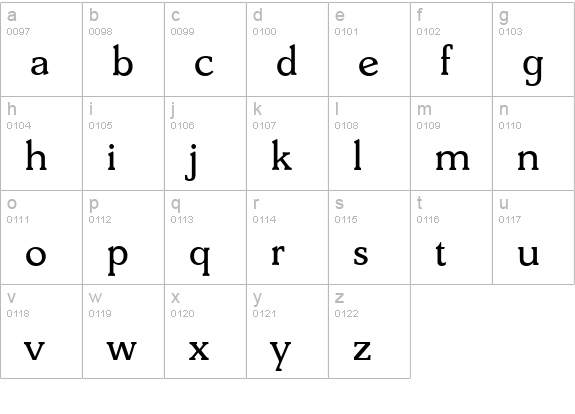
DerringerSerial-Regular is the standard, neutral variant in the DerringerSerial typeface family \xE2\x80\x94 well suited to general body text, paragraphs, and standard typographic work.
DerringerSerial-Regular font is a versatile and stylish typeface that exudes elegance and sophistication. Its sleek lines and contemporary design make it perfect for a wide range of design projects, from branding to editorial design. This font is ideal for creating eye-catching headlines, logos, and other graphic elements that demand attention. What makes DerringerSerial-Regular font even more appealing is that it is available for free download at FontsMarket.com. This means that you can easily access this high-quality font without any cost, making it a valuable addition to your font collection. With its unique charm and versatility, DerringerSerial-Regular font is sure to elevate the visual appeal of your projects and leave a lasting impression on your audience.